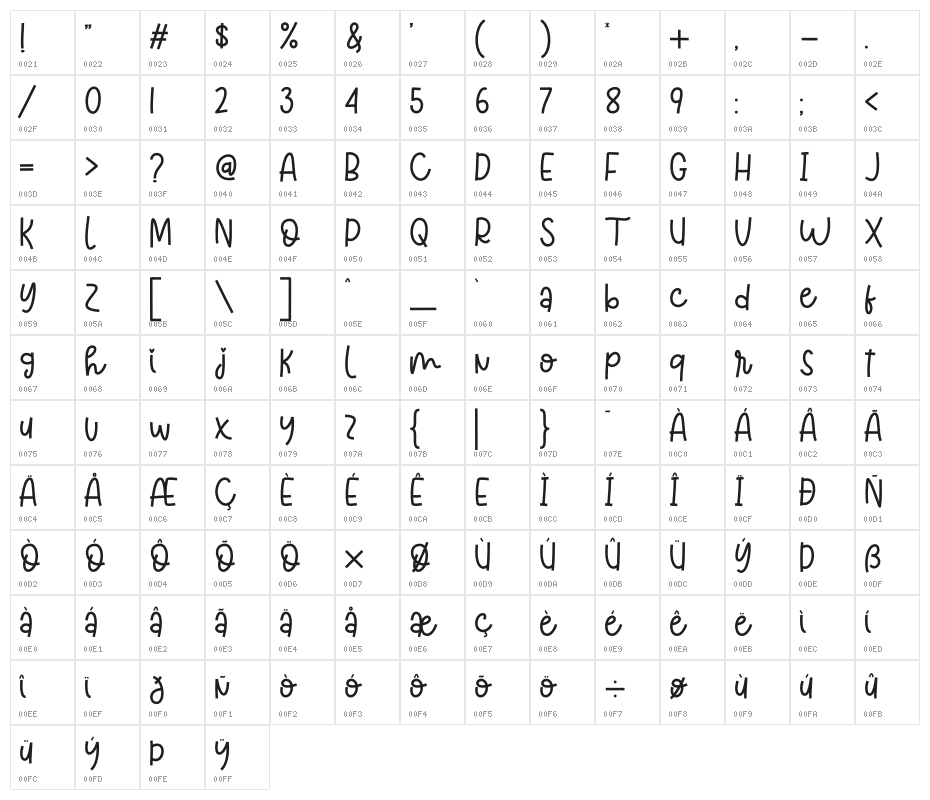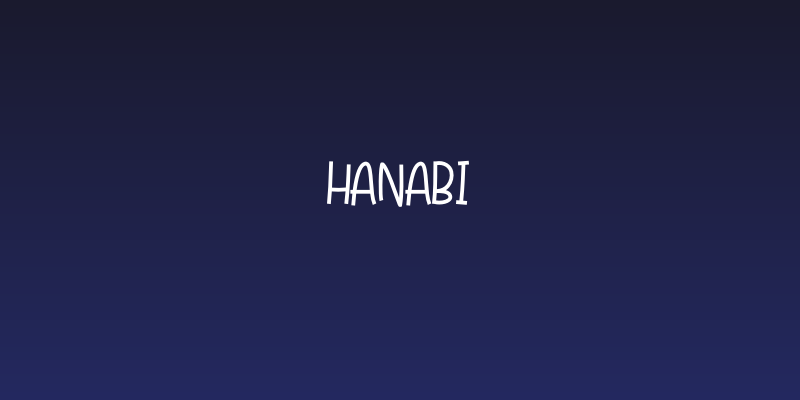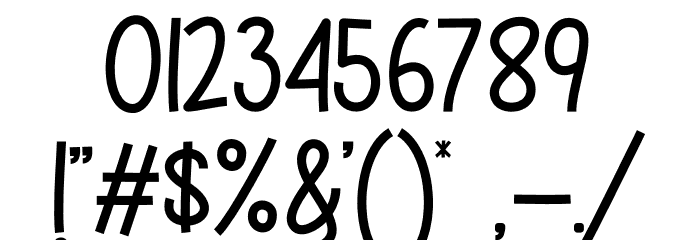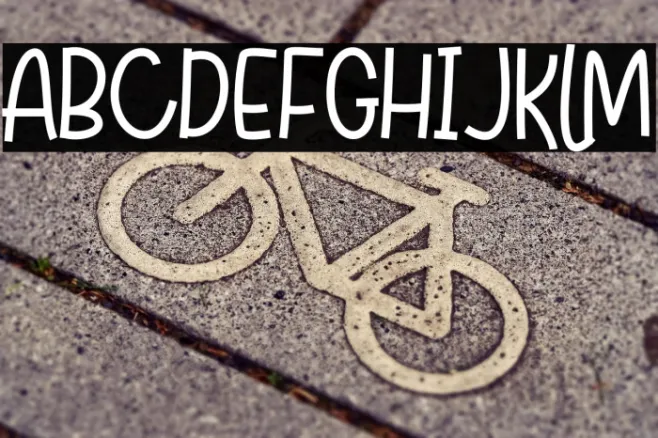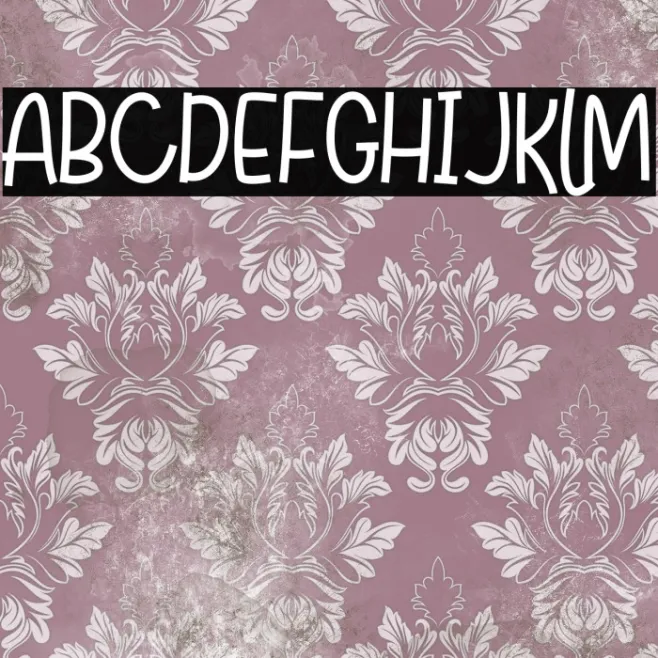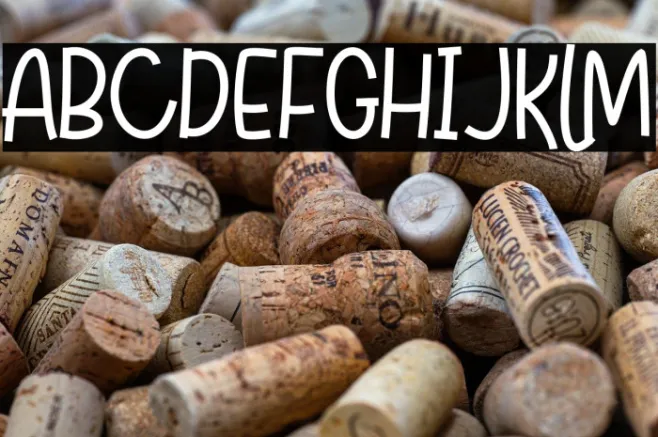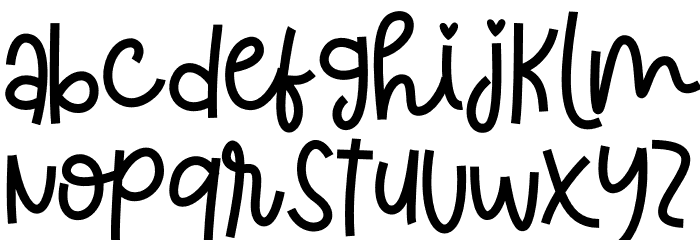
Hanabi Font
Hanabi Description
This playful and whimsical font features a handwritten style with a casual and friendly appearance. The letters are slightly irregular, adding a personal touch that feels both approachable and lively. The uppercase characters are bold and rounded, while the lowercase letters have unique flourishes, particularly noticeable in the 'g' and 'j'. The numbers are consistent with the overall style, maintaining the same playful curves. Special characters are well-integrated, ensuring versatility in various design contexts. This font exudes a sense of fun and creativity, making it ideal for projects that require a personal and informal touch.
| Proposed Projects | Ideal for greeting cards, children's books, playful branding, and social media graphics. |